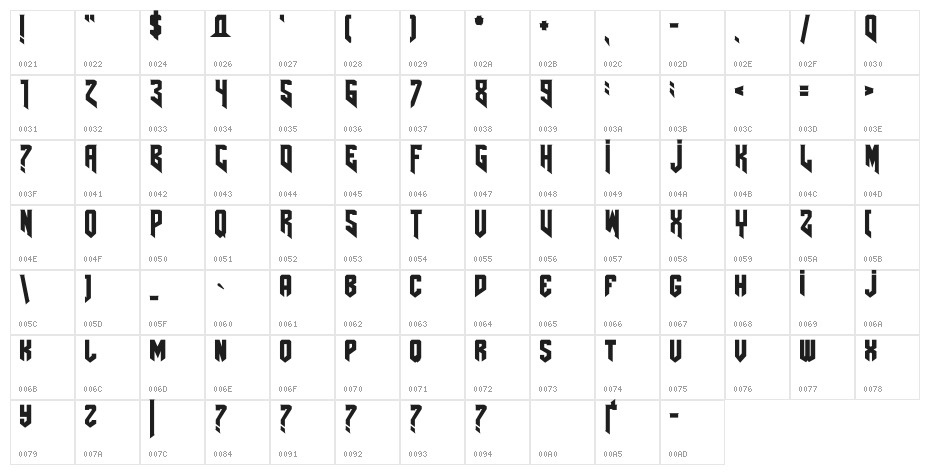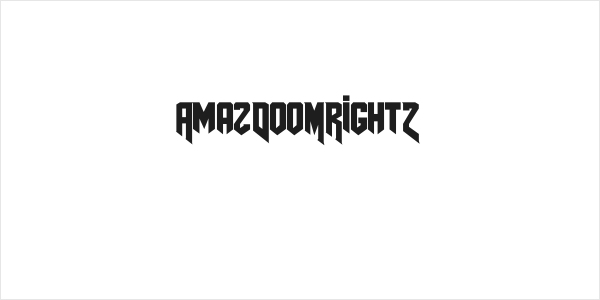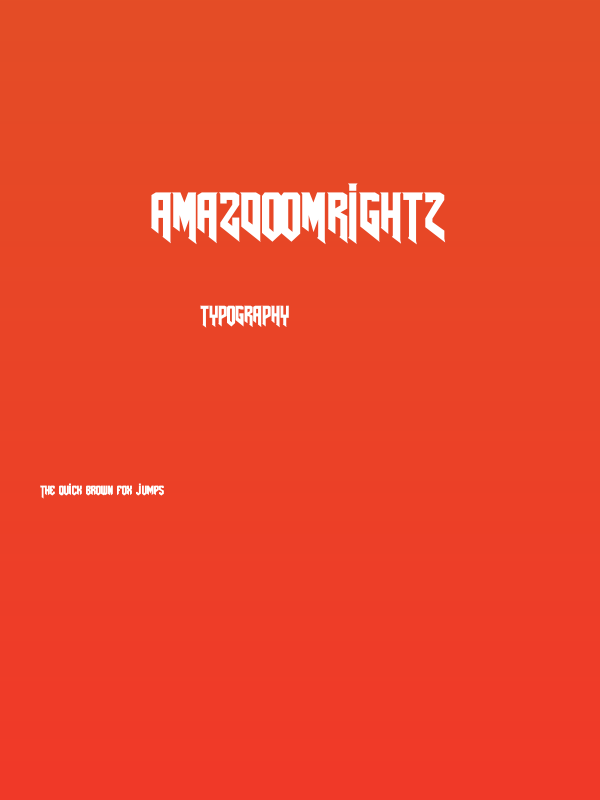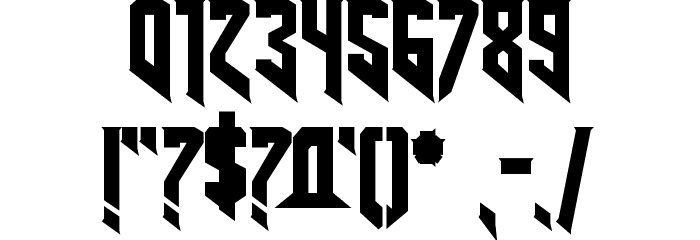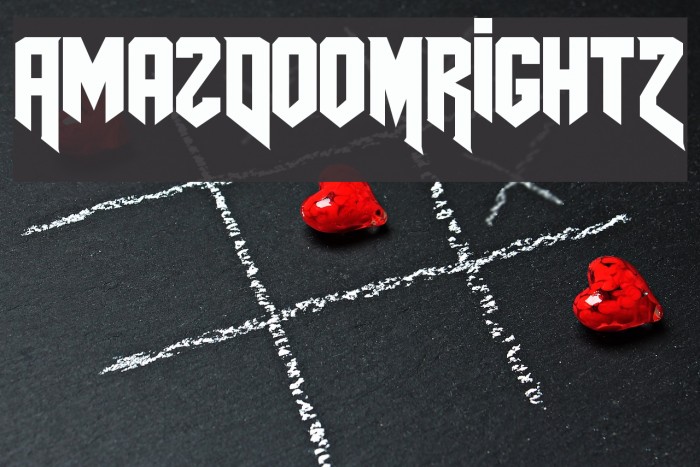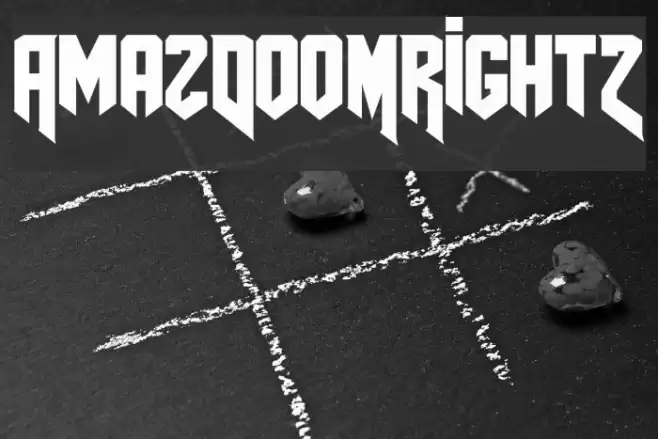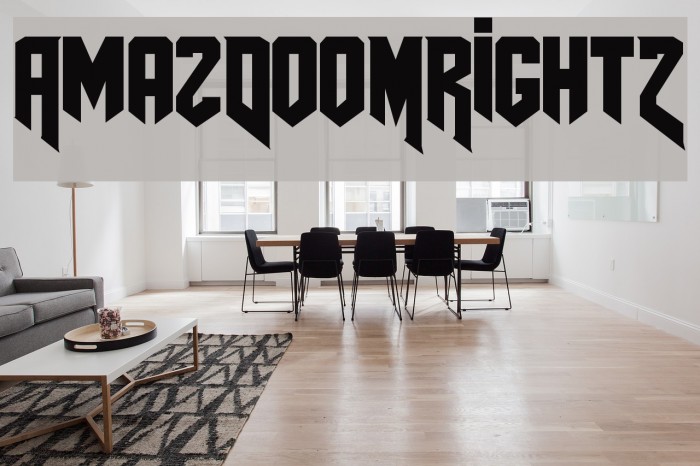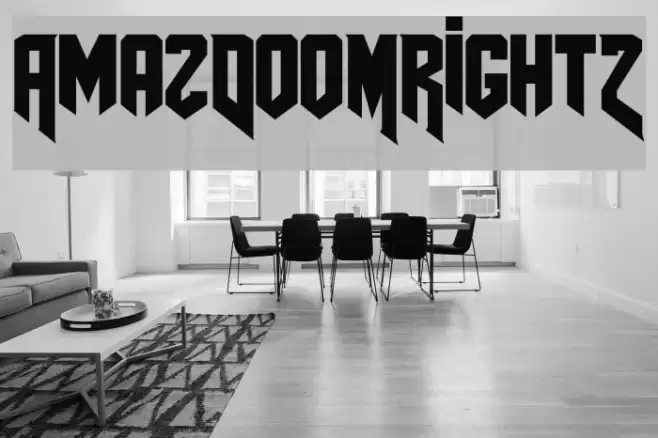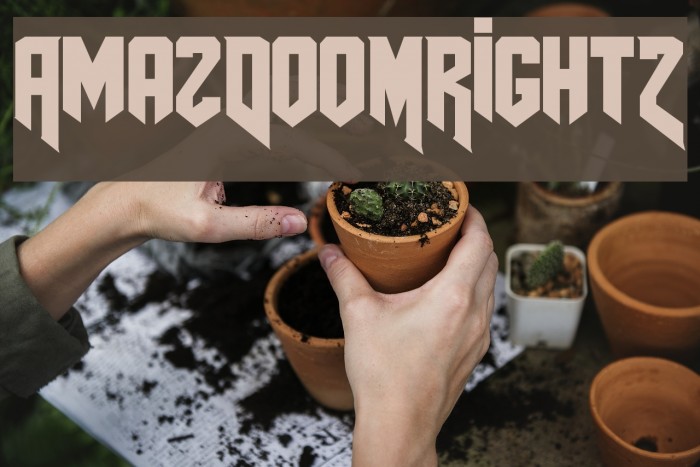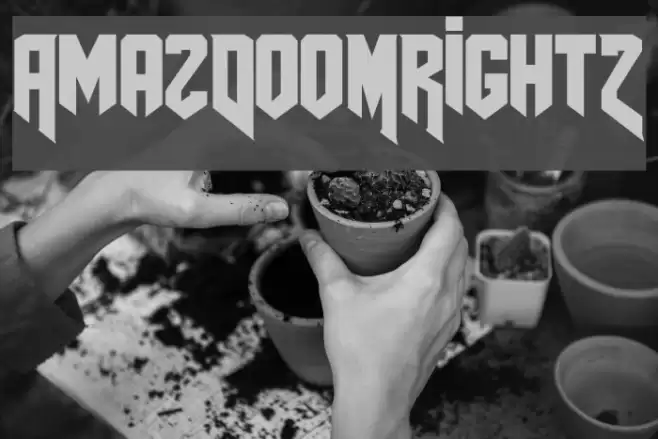
AmazDooMRight2 Font
AmazDooMRight2 Description
This font features a bold and aggressive style with sharp, angular edges and a futuristic aesthetic. The characters are heavily stylized, giving them a unique, almost geometric appearance. The uppercase letters are particularly striking, with exaggerated angles and a strong presence. The numbers and special characters maintain this bold, edgy design, making the font ideal for attention-grabbing headlines or logos. The overall look is modern and dynamic, suitable for projects that require a strong visual impact.
| Proposed Projects | Ideal for video game titles, movie posters, branding for tech companies, or any project needing a strong, modern aesthetic. |